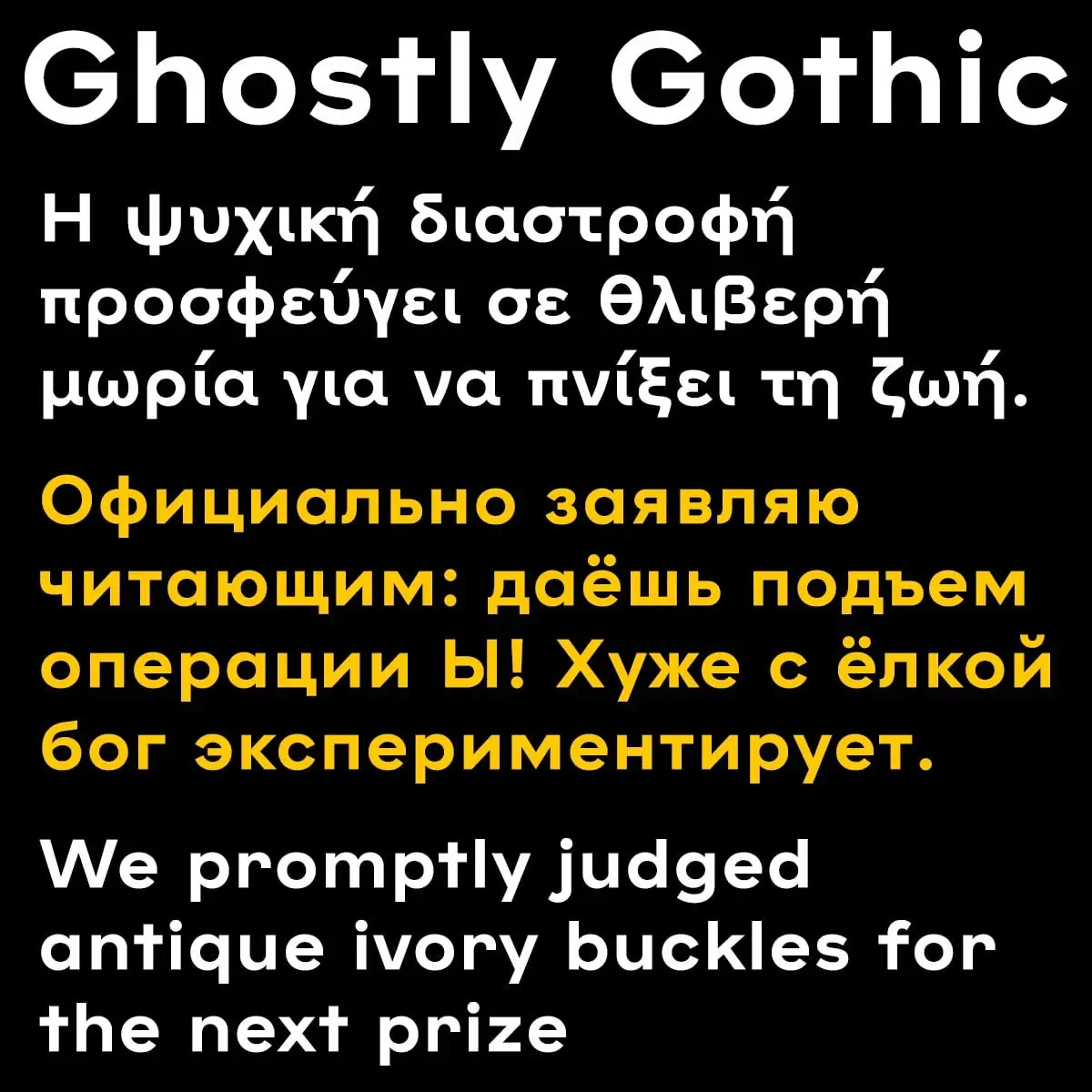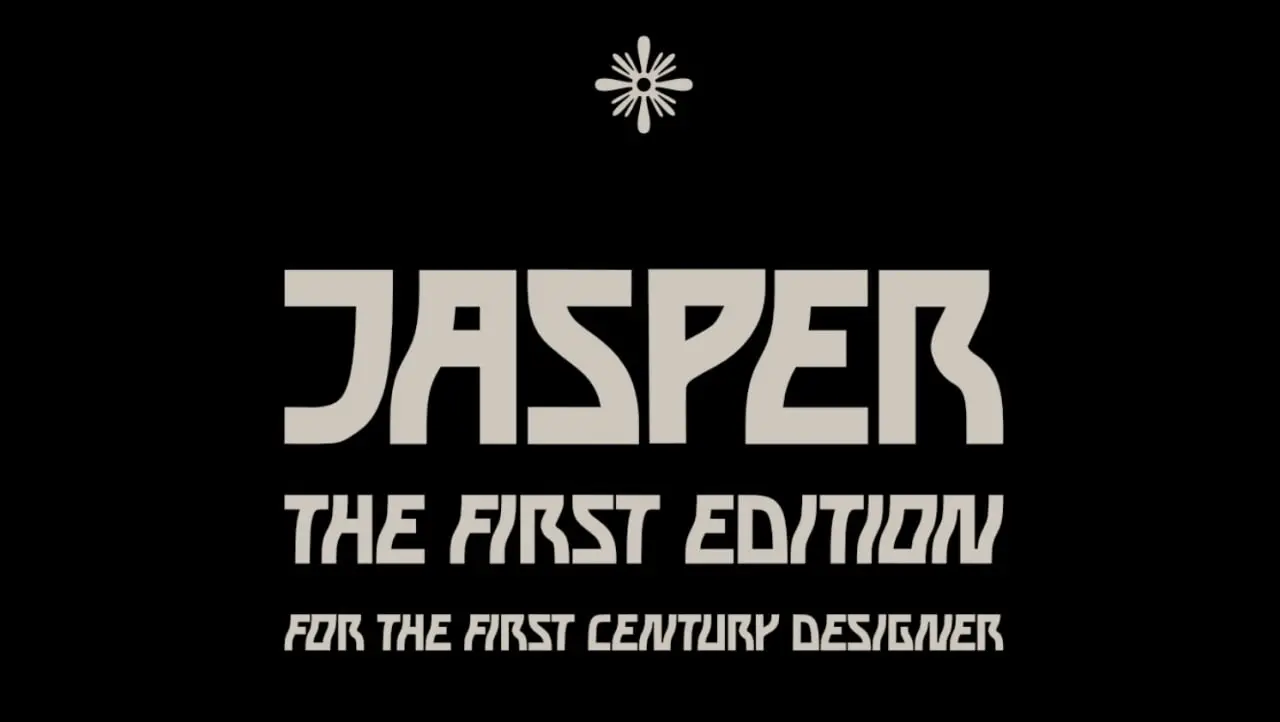
Hugio-Display Font
Kick off your list with this bold showstopper! 🦁 Perfect for logos and headlines, the Hugio-Display Font brings clean lines and serious attitude to any project. Multiple weights mean more flexibility for you!
Karyna Manukian-Calypso
Elegance meets versatility! 🌸 This digital asset features high-res graphics that work beautifully for branding and web design. It’s easy to customize and instantly upgrades your creative workflow.
Kolobov New Mexika By Ilya Kolobov
Contemporary typography at its finest! 🎯 This font from Ilya Kolobov rocks multiple weights and a unique style that feels both fresh and polished. Ideal for modern branding projects.
Greca-Modern Serif Font
Classic charm meets a modern twist! 🏛️ Greca’s elegant curves and sharp serifs make it perfect for editorial designs and luxury brand logos. Multiple weights give you endless possibilities!
Hirosaki — By Ardyanatypes
Elegant, modern, and multilingual—what’s not to love? 🌍 Hirosaki features clean lines and multiple styles, making it a go-to for global design projects. Ardyanatypes nailed it again!
Goofy Font By Carmen Nácher
Time to get playful! 😜 This whimsical typeface adds personality to any design with its lively letterforms. Great for kids’ branding, party invites, or anything that needs a dose of fun!
H74 Alcazar
A versatile design asset that brings a unique aesthetic to your projects! 🏰 High-res and editable vector files make it a breeze to use in any software. Perfect for branding and web design!
Grtsk By Ilya Naumoff, Benjamin Blaess
Artistic flair meets modern design! 🎨 Grtsk is a stylish typeface with multiple weights and full character sets. Ideal for posters or branding that needs to stand out with confidence!
Ioto By Alex Frolov
Fresh perspective alert! 🚀 Ioto is a customizable digital asset with high-quality elements that adapt to any branding or marketing need. Alex Frolov delivers versatility and style!
Hitherto-Free Font
Versatility is the name of the game! 🎯 This modern typeface features clean lines and multiple weights—perfect for everything from logos to web design. A must-have for your font library!
H2O Display-Free Typeface By Cloe
Fluid and fresh like water! 🌊 This display typeface by Cloe offers unique character shapes and clean lines. Ideal for UI design, branding, and print—super versatile!
Gudinigrotesk By Mikhail Mamikonyan
Geometric elegance with a classic touch! 📐 Multiple weights and clean letterforms make Gudinigrotesk perfect for multilingual projects. Mikhail Mamikonyan brings the heat!
Invasistudio Funky Gloom Fancy Blackletter
Dark, moody, and oh-so-stylish! 🖤 This blackletter font adds a modern twist to a classic aesthetic. Perfect for posters, logos, or any project that needs a touch of gothic drama!
Jyo Display
A versatile asset tailored for modern creatives! 🌟 High-res graphics and customizable elements make Jyo Display a dream for both web and print projects. Your new secret weapon!
Jasper-Display Typeface
Bold and unforgettable! 💥 This striking display typeface with unique character shapes is made for headlines and branding. Multiple weights give you all the flexibility you need!
Eric Burntilldead-Dellucion
Striking visuals that pop! 🎆 This digital asset features easy-to-customize elements perfect for bold design applications. Add a fresh perspective to your creative projects today!
Florisa By Limitype
Elegance and sophistication combined! 🌸 Florisa brings a beautiful blend of modern and classic styles with multiple weights. Perfect for wedding invites, luxury branding, or editorial work!
Dr-Raymond Display (C) Daniel Reed
Striking and contemporary! 🧑⚕️ This display font by Daniel Reed is perfect for advertising and editorial design. Unique characters and a modern flair make it a standout choice!
Ghostly Gothic Font Cyrillic By Michael Cina
Eerie, elegant, and multilingual! 👻 This gothic font supports Cyrillic characters and multiple weights. Perfect for adding a spooky yet refined touch to any design project!
Freik Font By Gilang Maulana